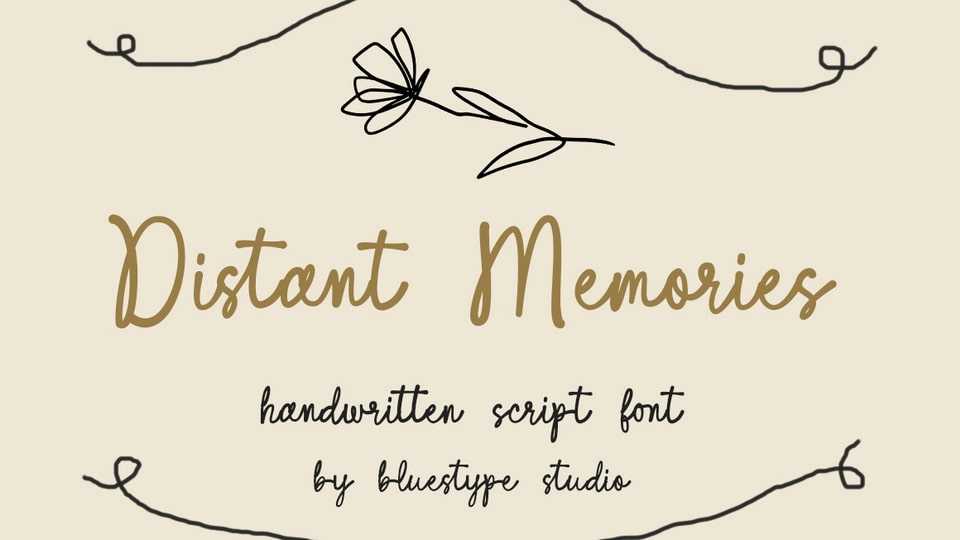
Download Distant Memories font, a beautifully crafted handwritten script designed to bring elegance, warmth, and personality into your creative projects.